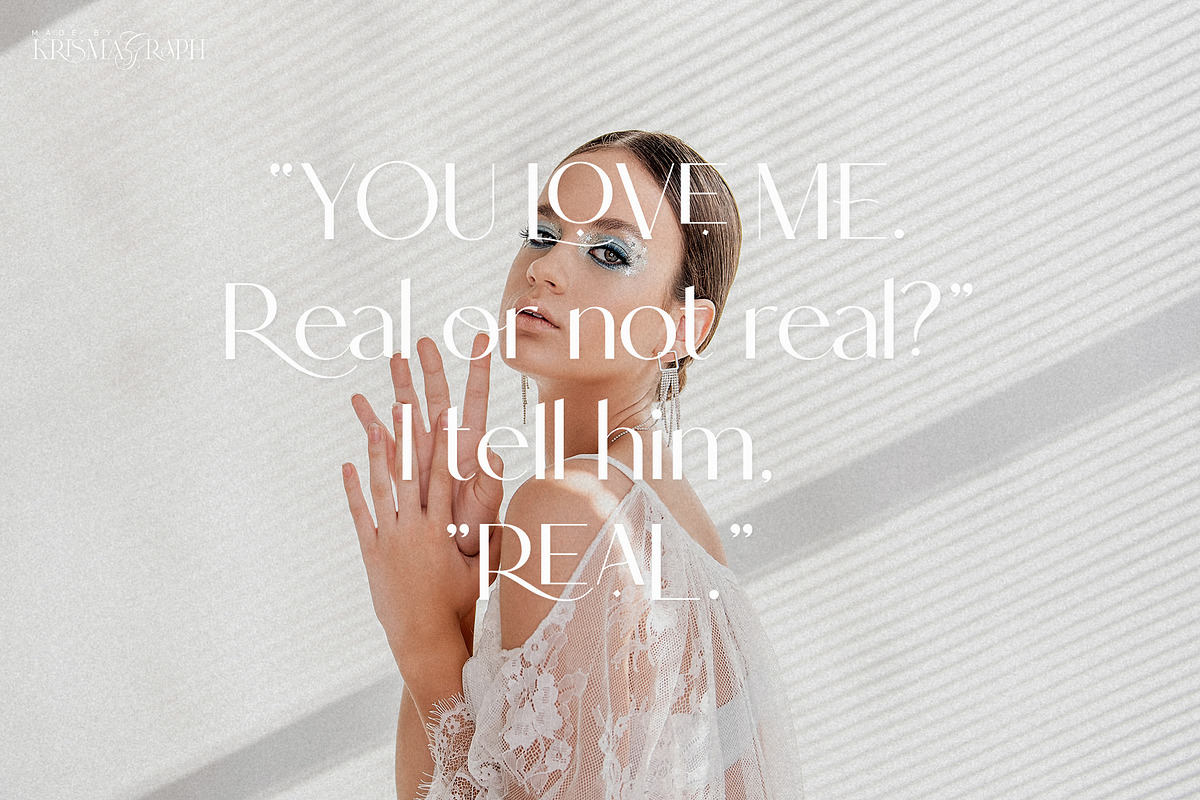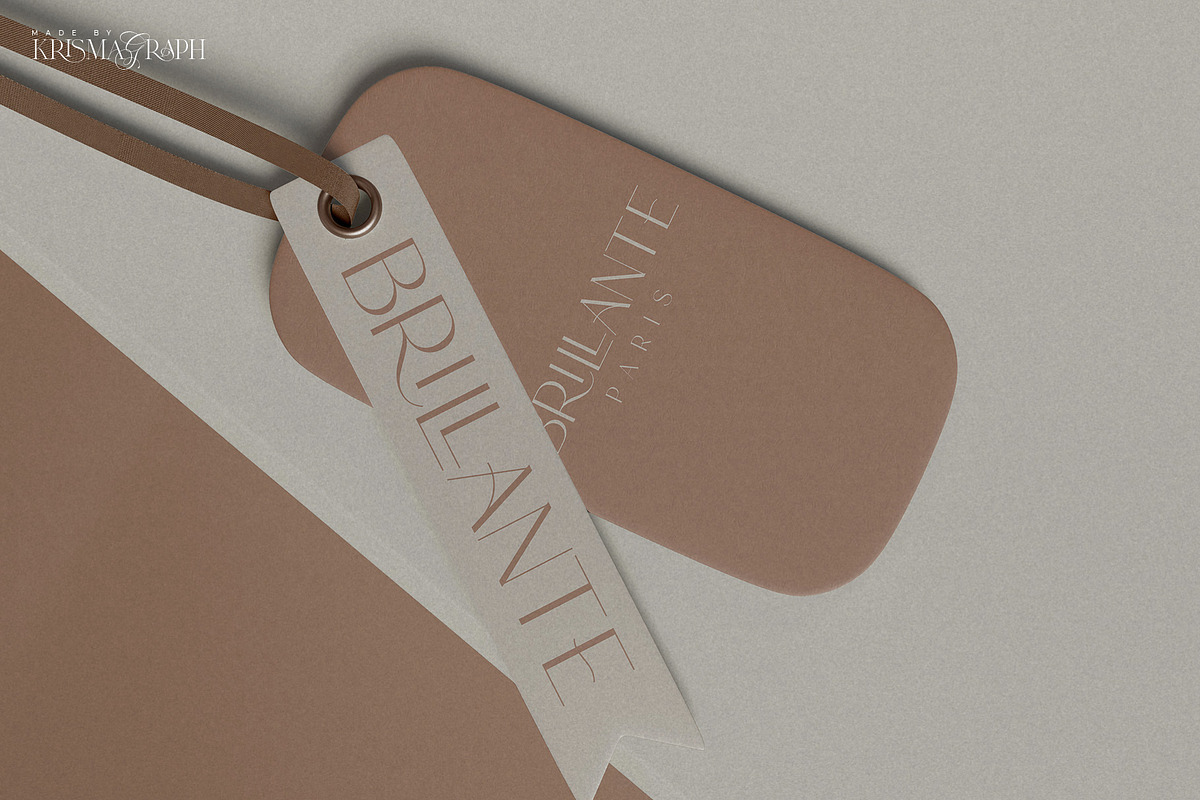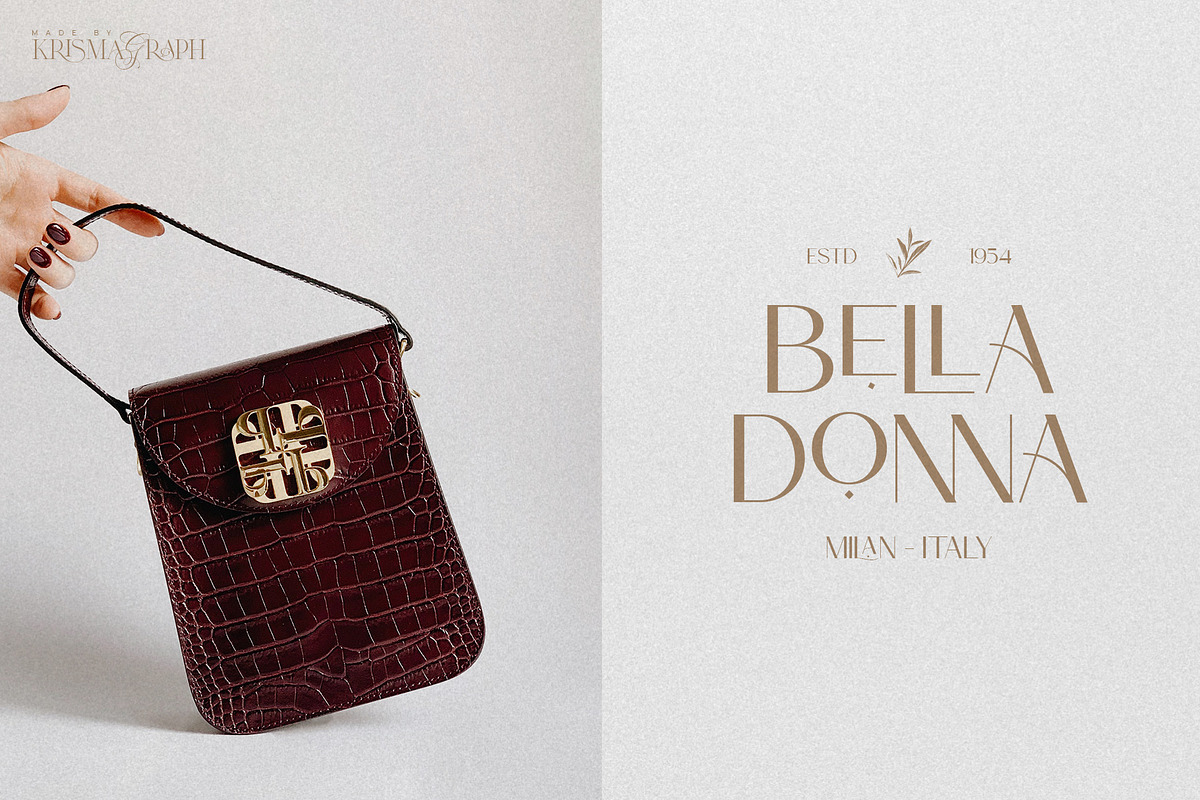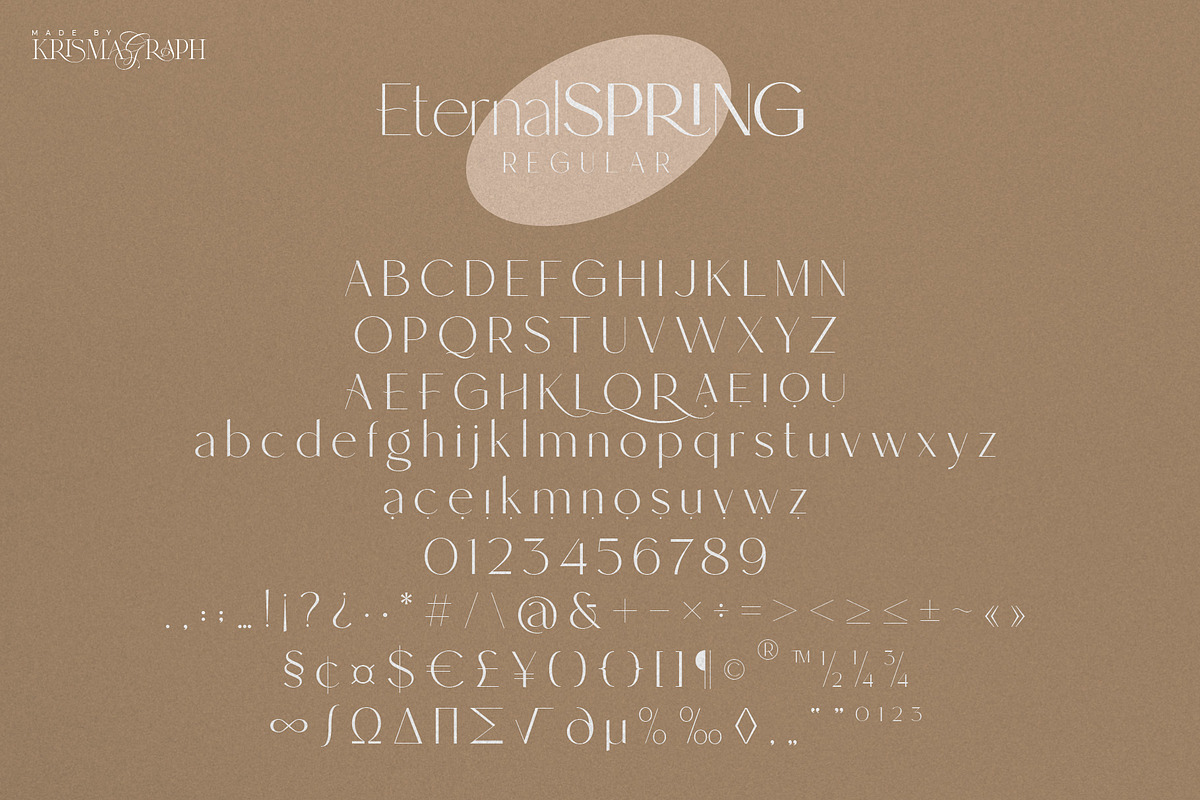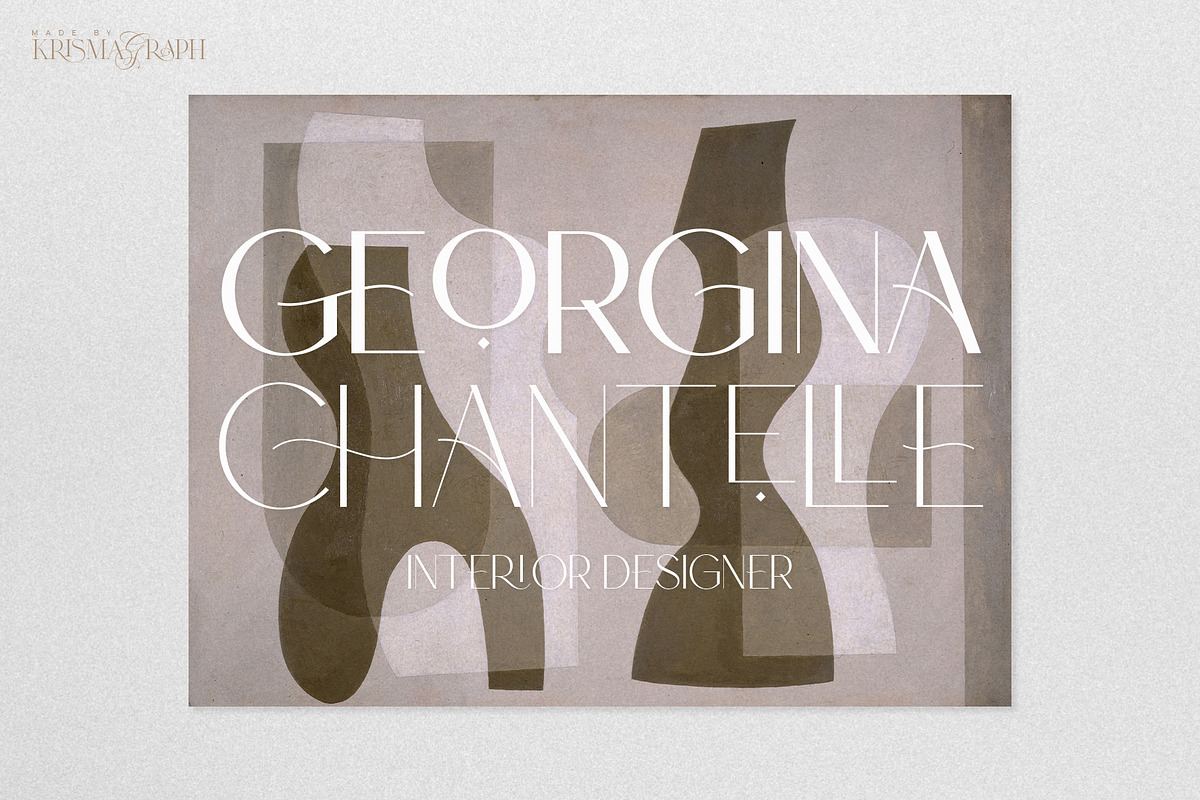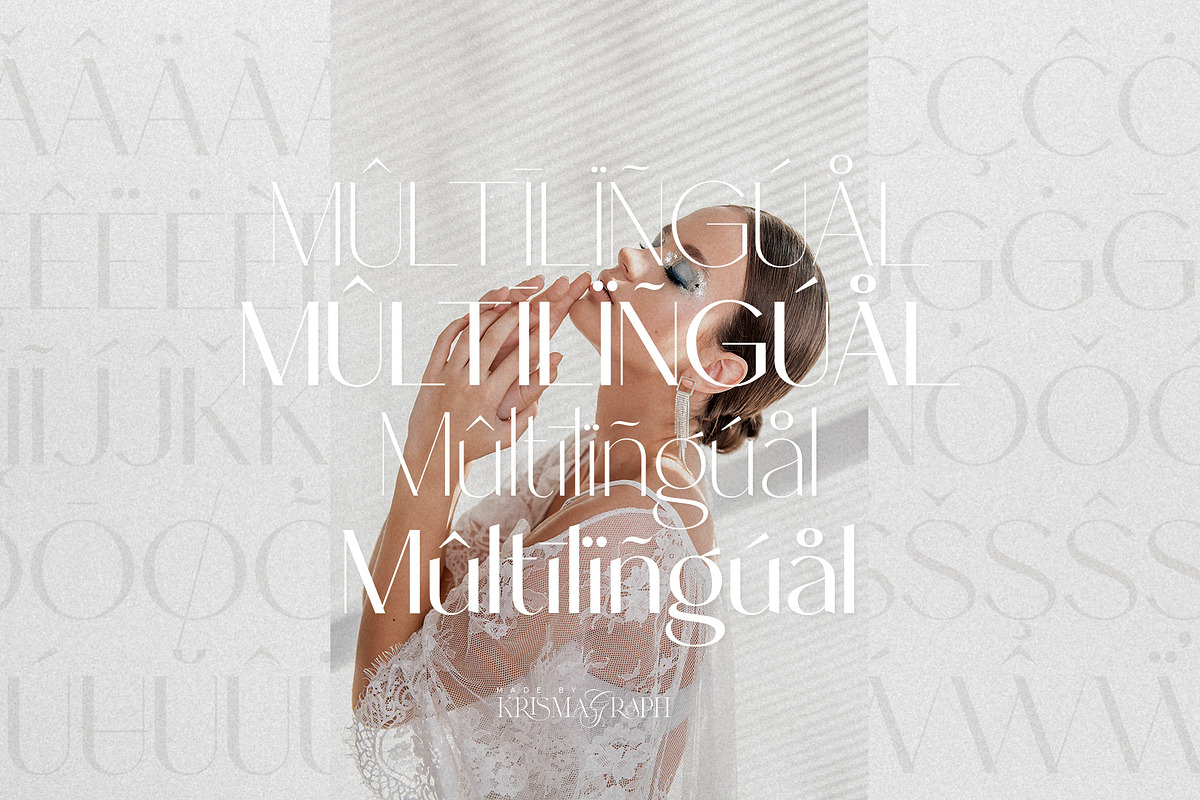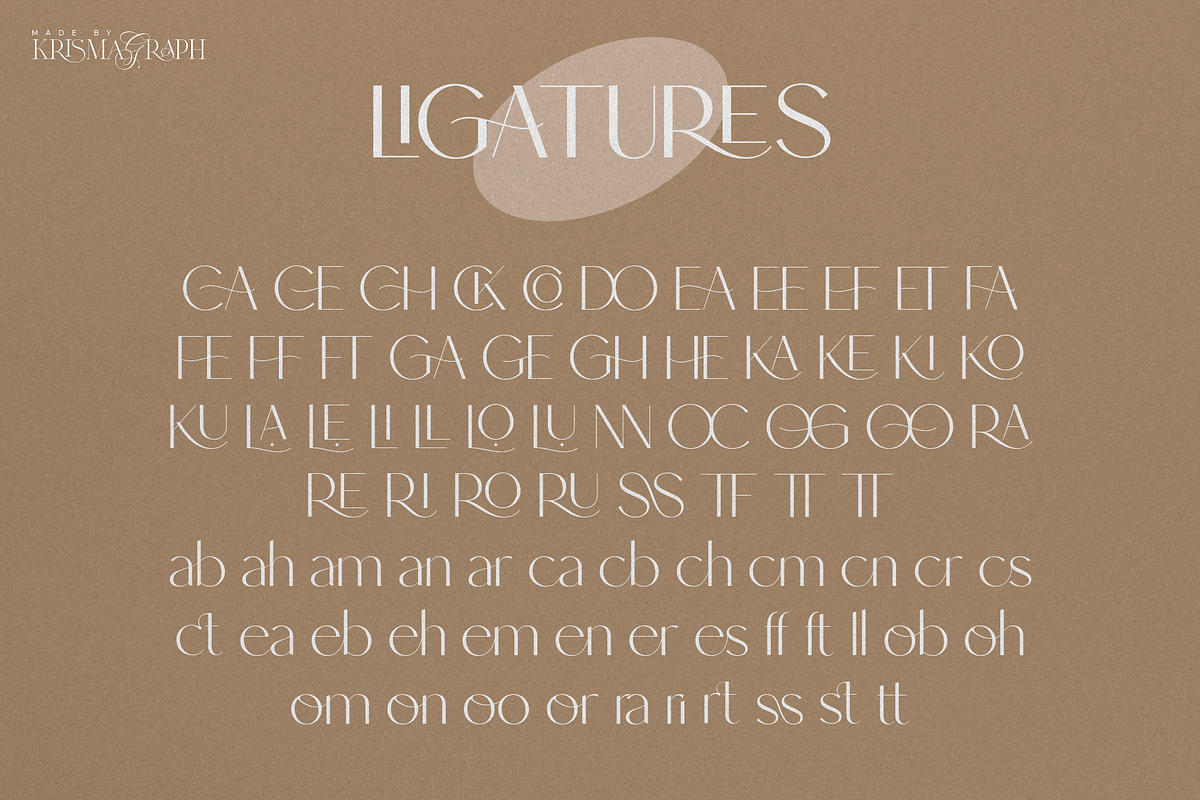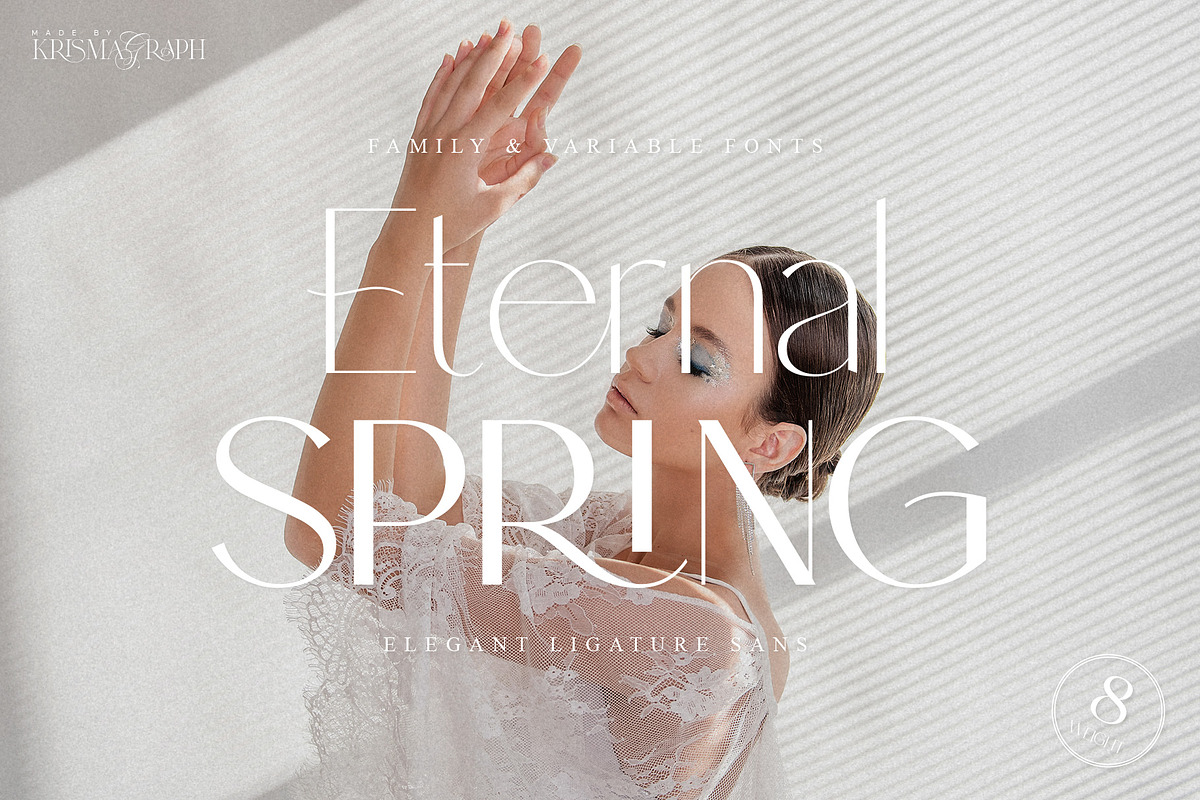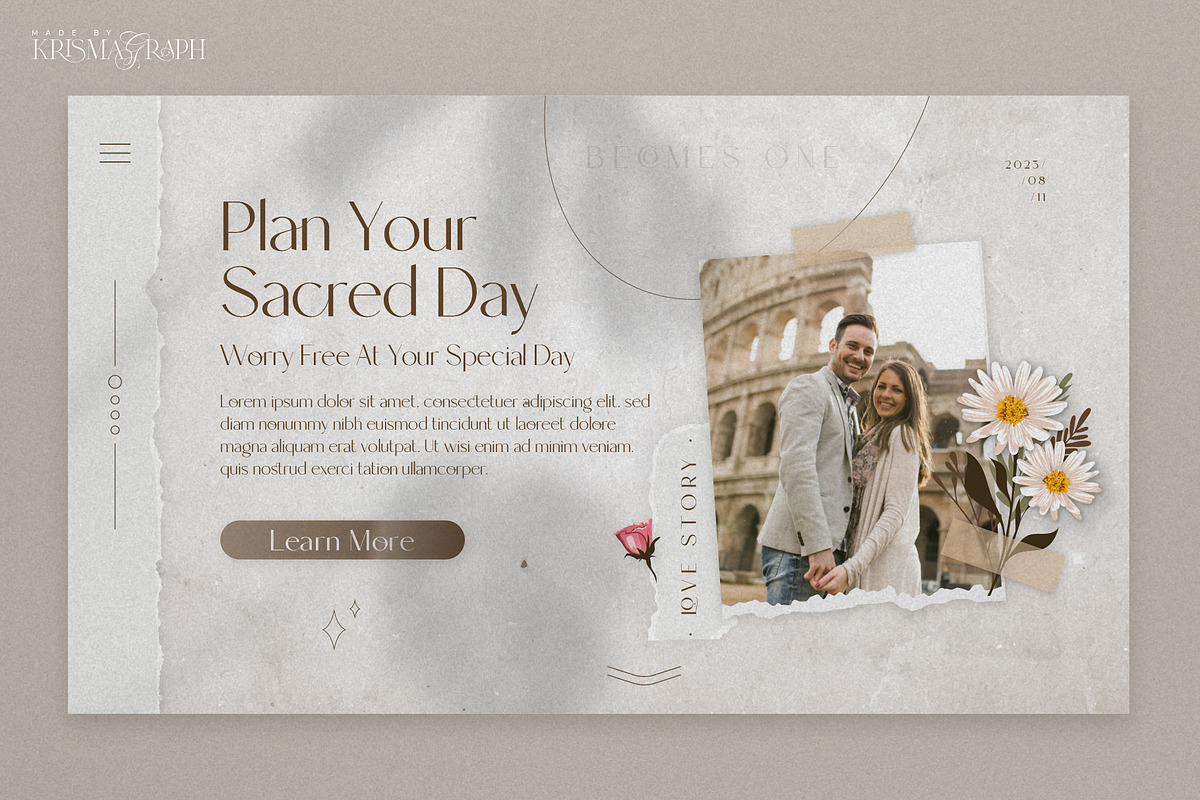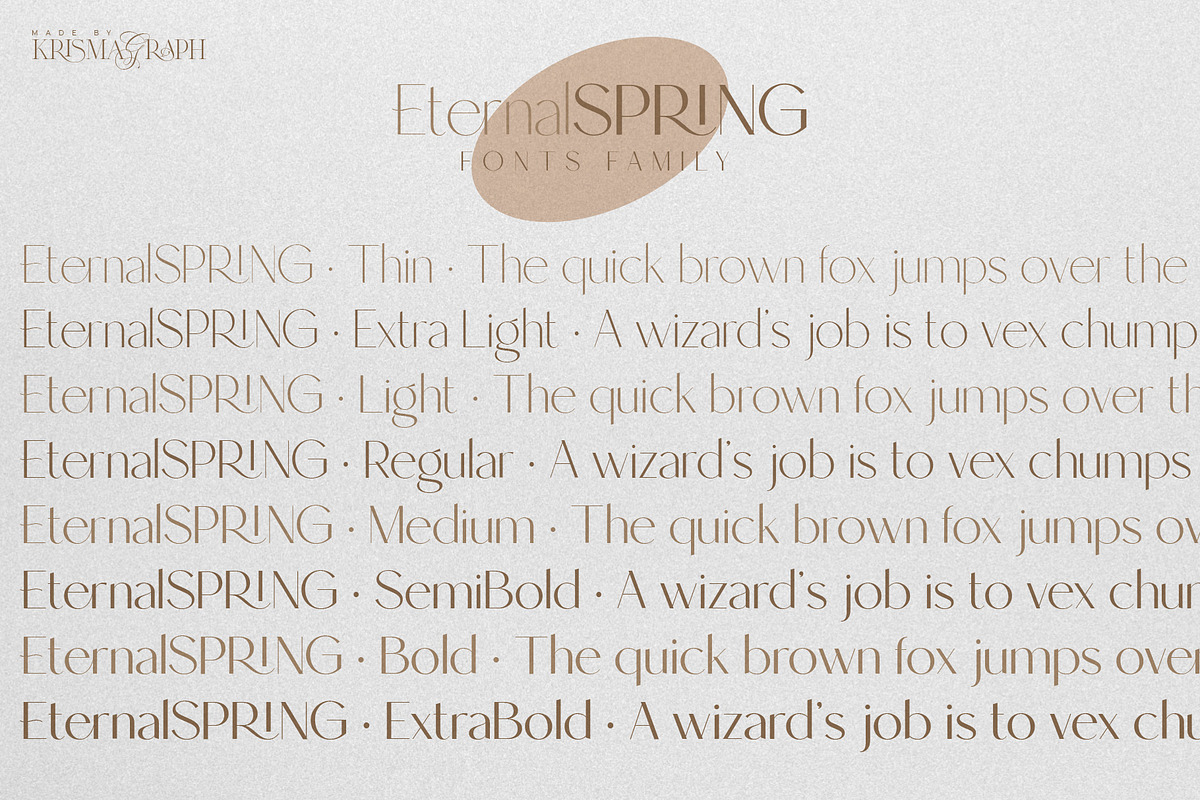
Eternal Spring | Elegant Sans Family
Eternal Spring is an elegant and modern san serif font family. It's sans serif in 8 weights from Thin to ExtraBold and variable font. Comes with 76 unique ligatures and 27 alternates. Eternal Spring font is a multipurpose font that is perfect for any project, with high contrast glyphs, giving it a feminine and masculine quality, modern, and easy to read. Great in layout design for quotes or body copy, best used as a display for headings, logos, branding, magazines, product packaging, invitations, and others. This font is easy to use and has OpenType features.
- Full alphabet with Uppercase and Lowercase
- Numbers, fractions
- Punctuation and symbols